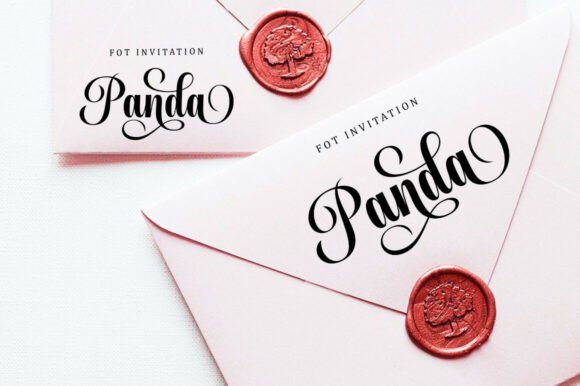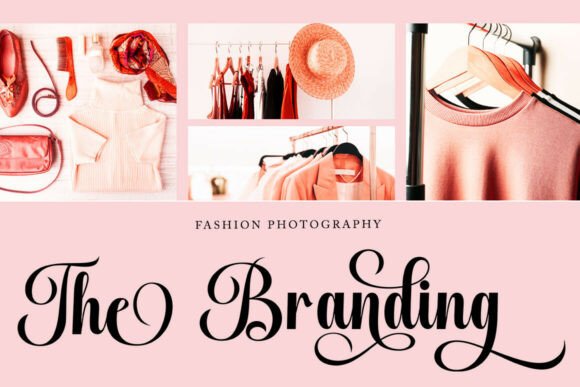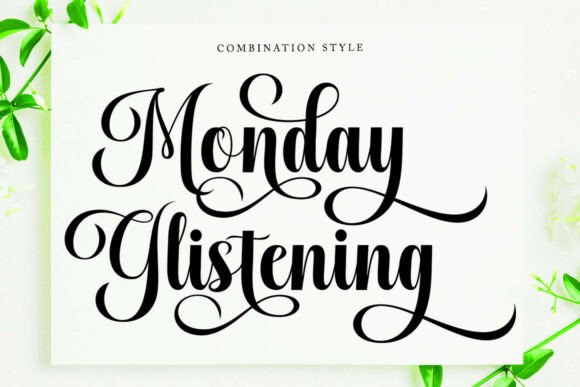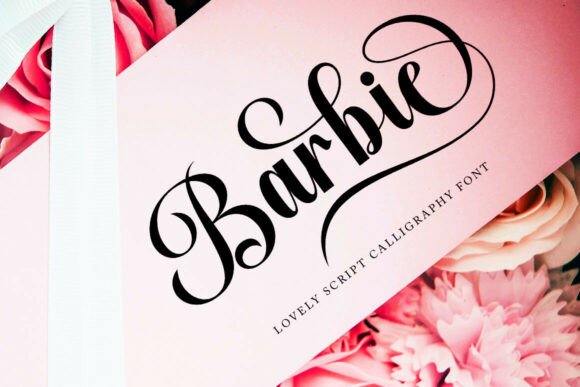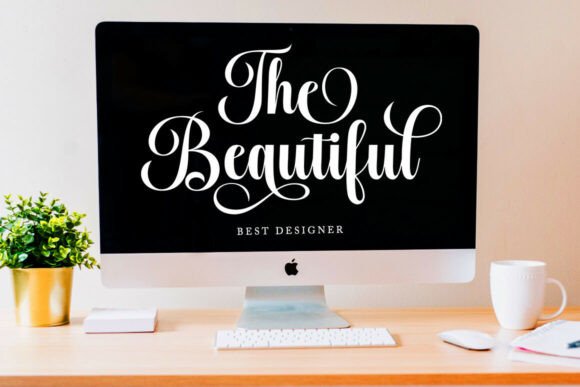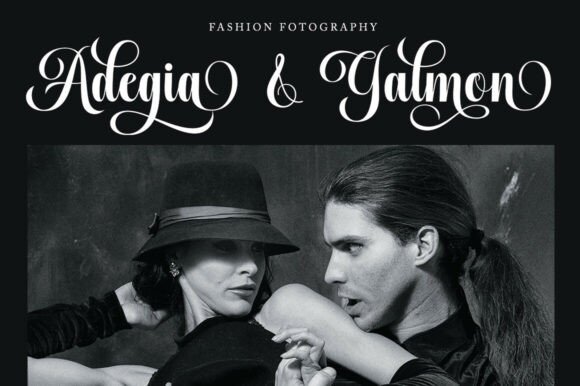
Unleashing the Art of Black Handwritten Font
Have you ever found yourself sitting at your desk, surrounded by scraps of paper, pens, and a blank canvas, waiting for inspiration to strike? That’s exactly where I was when I stumbled upon the Black Handwritten Font. As I began to play with its beautiful alternate characters, I knew I had discovered something special.
The Black Handwritten Font is a stunning calligraphy font that effortlessly combines elegance and sophistication. Its purpose is to bring a touch of romance and whimsy to your designs, making it perfect for branding, wedding invitations, and other projects that demand a little extra flair. For designers, this font is a treasure trove of creative possibilities, offering endless opportunities to experiment and push the boundaries of typography.
Whether you’re a seasoned pro or just starting out, the Black Handwritten Font is an invaluable addition to any designer’s toolkit. Its unique blend of calligraphy and elegance makes it a standout choice for anyone looking to add a touch of sophistication to their designs.
Key Features of Black Handwritten Font
- Unique Characteristics: Handwritten, script, and cursive font styles with a touch of elegance and sophistication
- Font Style Variations: Includes bold, italic, and regular font styles for added versatility
Black Handwritten Font Review
When I first laid eyes on the Black Handwritten Font, I was immediately drawn to its unique, edgy aesthetic. ✨ The font’s bold, handwritten feel is perfect for adding a touch of sophistication and elegance to any design project. ✨ I love how it adds a personal, human touch to text, making it perfect for branding, advertising, and editorial design.
However, as I delved deeper into using the font, I encountered a few limitations that might make it less suitable for certain projects. ⚠️ Firstly, the font can be quite difficult to read in smaller sizes, which may limit its use in body text or long passages of text. ⚠️ Additionally, the font’s irregularities can sometimes make it challenging to achieve perfect alignment or spacing, which may require extra effort to fine-tune.
- Unique, handwritten aesthetic
- Bold and sophisticated feel
- Perfect for branding, advertising, and editorial design
- May be difficult to read in smaller sizes
- Can be challenging to achieve perfect alignment or spacing
Overall, the Black Handwritten Font is a great choice for designers looking to add a touch of personality and elegance to their designs. While it may have some limitations, its unique aesthetic and versatility make it a valuable addition to any design library.
The Black Handwritten Font is ideal for creative projects, such as:
- Invitations and event materials
- Personalized stationery and letterheads
- Artistic quotes and typography
Alternatives to Black Handwritten Font
Great Vibes is a beautiful, elegant handwritten font perfect for creative and artistic designs. It features a mix of cursive and script elements, making it ideal for quotes, headings, and titles. Great Vibes is a more refined and sophisticated alternative to Black Handwritten Font, with a more subtle and intricate design. It’s suitable for designs that require a touch of sophistication and elegance.
Alex Brush is a luxurious, handwritten font that exudes elegance and sophistication. It’s perfect for high-end designs, such as luxury brands, weddings, and fine art. Alex Brush is more polished and refined compared to Black Handwritten Font, with a more fluid and cursive design. It’s ideal for designs that require a sense of luxury and refinement.